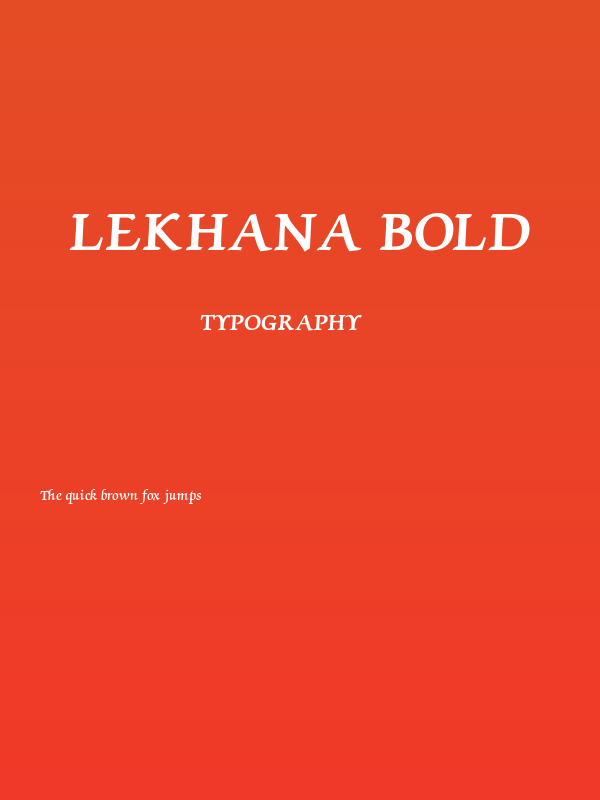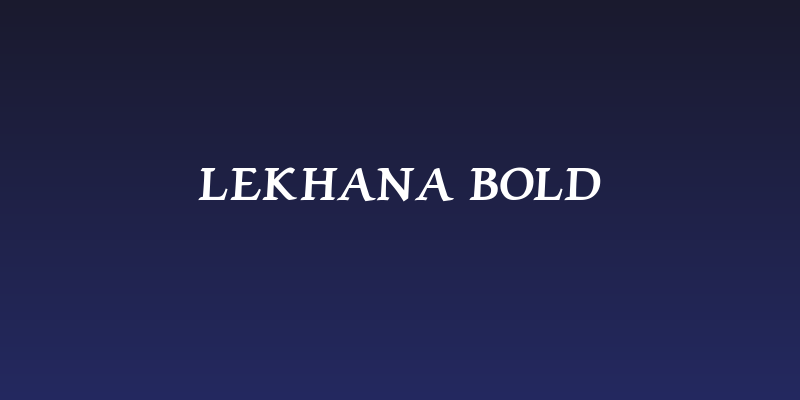
Lekhana Bold Font
Lekhana Bold Description
This font features a bold and dynamic serif style with a strong presence. The uppercase letters are elegantly crafted with a slight slant, giving them a sense of movement and sophistication. The lowercase letters maintain a consistent flow, complementing the uppercase with their slightly cursive nature. Numbers are robust and clear, ensuring readability. Special characters are well-integrated, maintaining the overall aesthetic. The font's boldness and slight italicization make it suitable for impactful designs.
| Use Case | Headlines, Logos, Editorial Design |
| Proposed Projects | Ideal for branding, headlines, book covers, and editorial design where a strong and elegant serif is needed. |